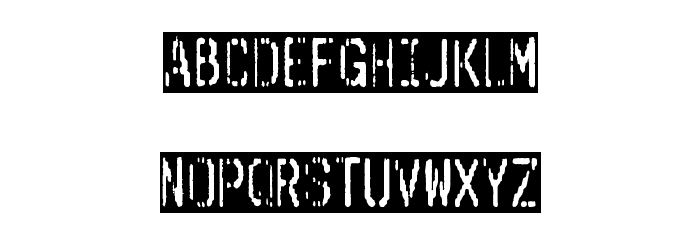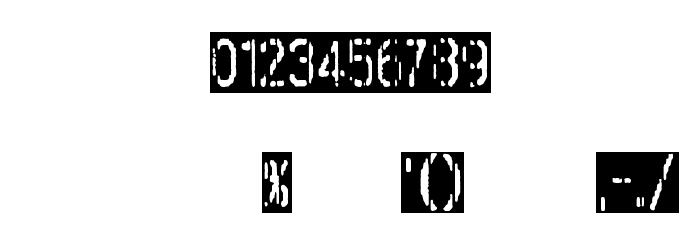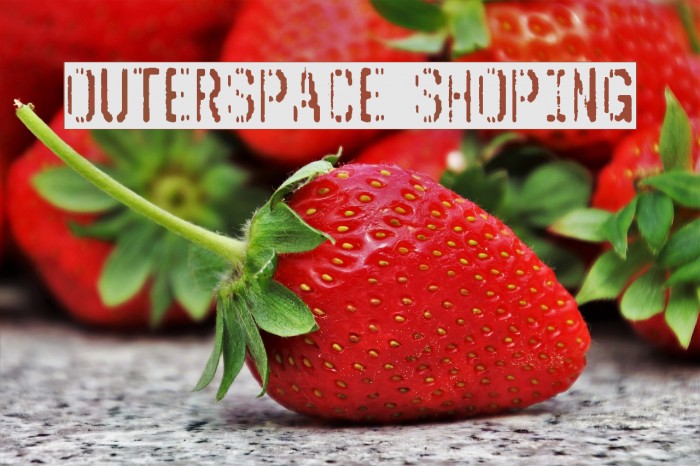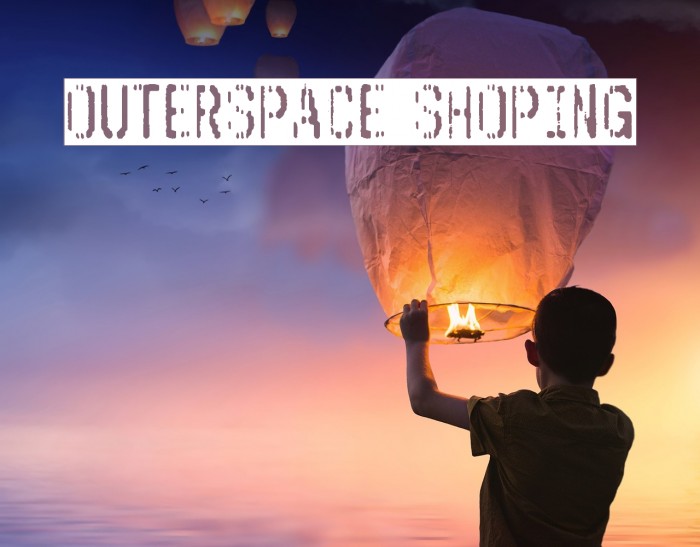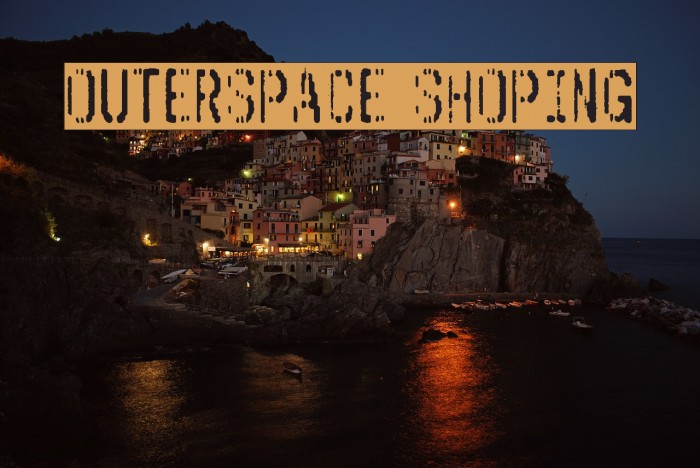
Outerspace Shoping Font
This font features a distressed, grunge aesthetic with a stencil-like appearance. The characters are bold and uppercase, with a rough texture that gives them a worn, industrial feel. The edges are uneven, adding to the rugged style, while the spacing between characters is relatively tight, enhancing the compact look. The numbers and special characters maintain the same distressed style, making them cohesive with the alphabet. This font is ideal for projects that require a bold, edgy statement, such as posters, album covers, or branding for alternative or urban-themed products.
A distressed, stencil-like font with a bold, grunge aesthetic.
- Proposed Projects: Ideal for posters, album covers, urban-themed branding, and edgy graphic designs.
- Character Spacing: Tight
- Overall Style: Grunge, Industrial